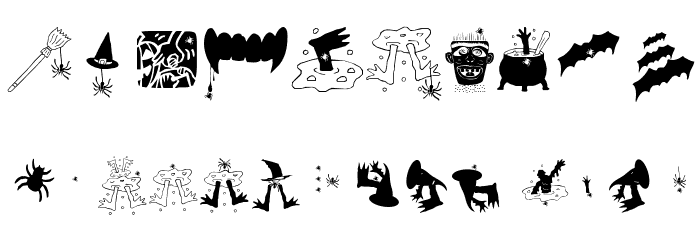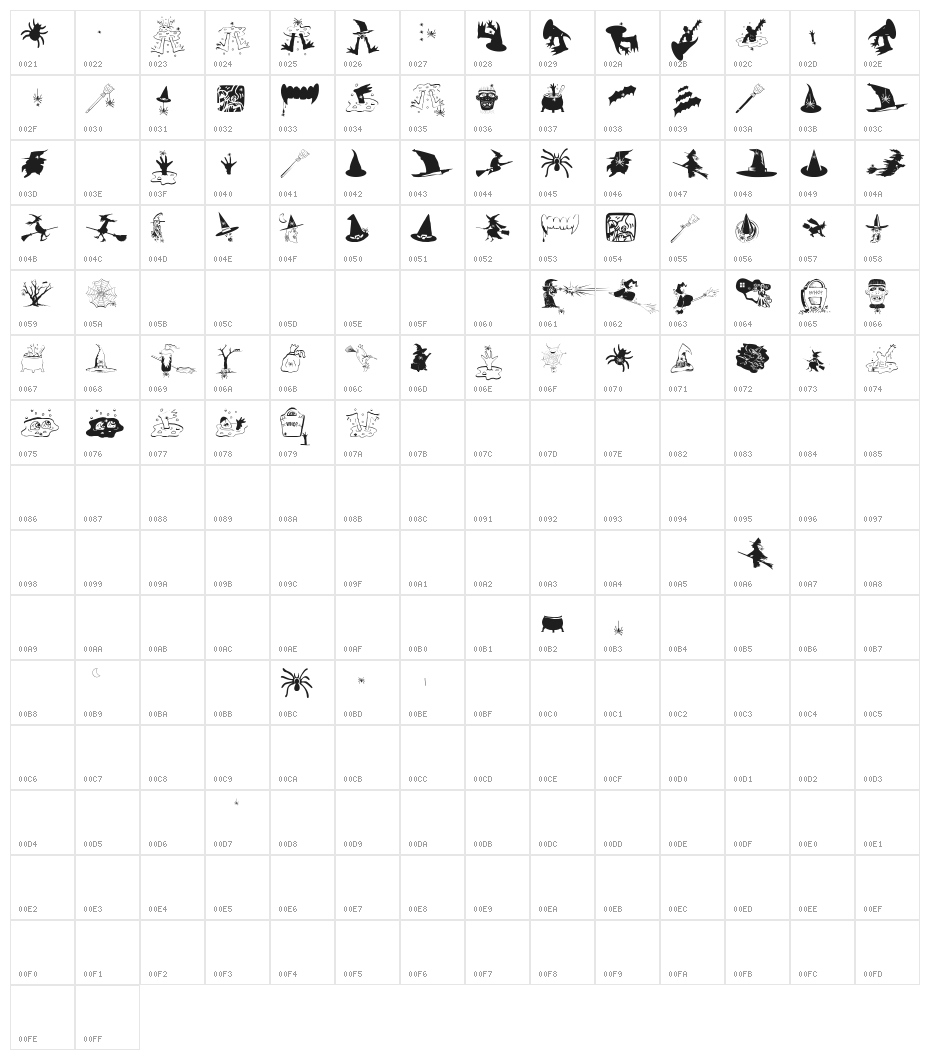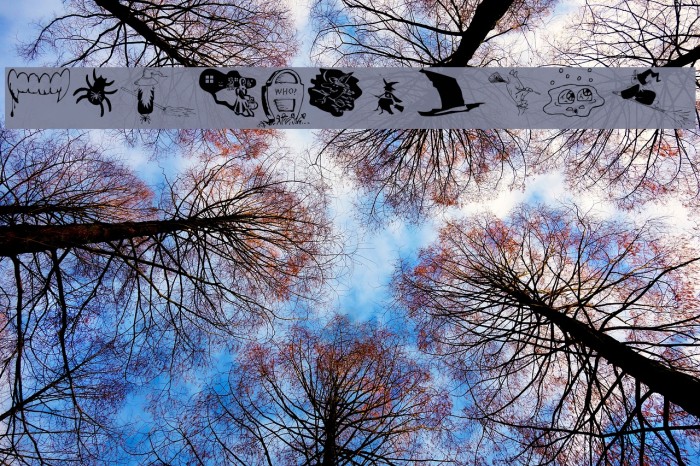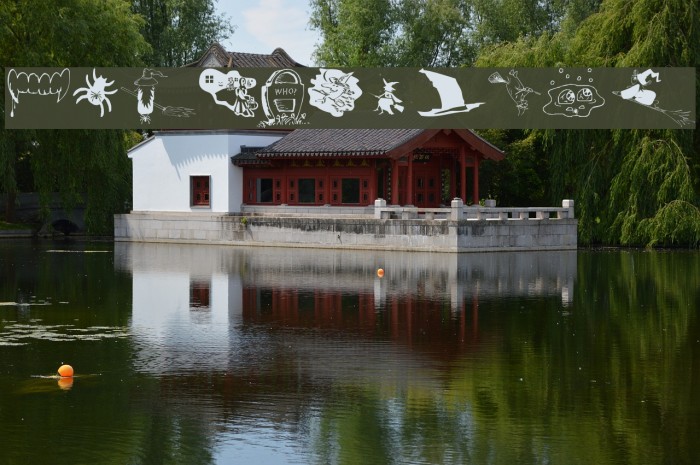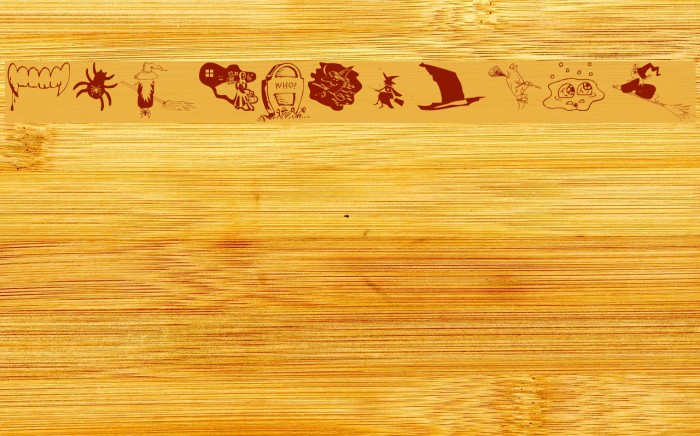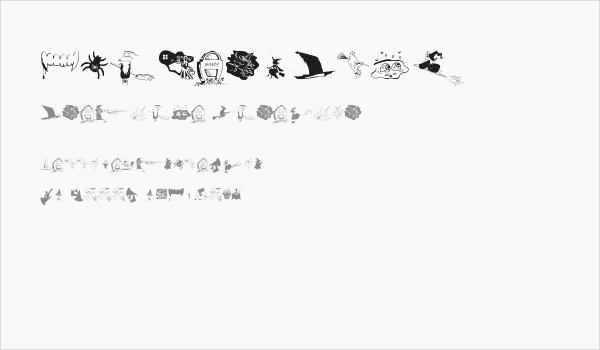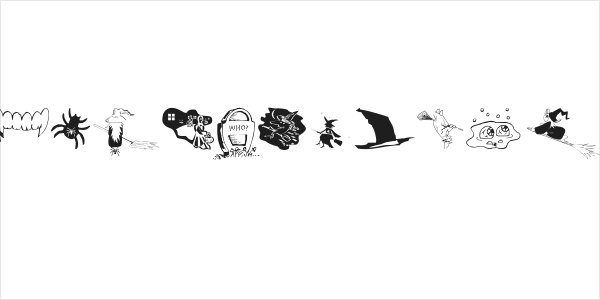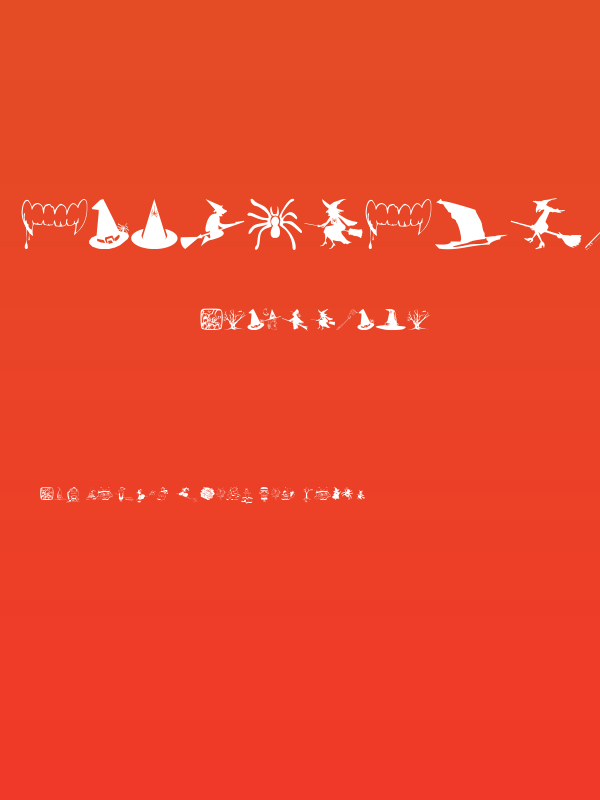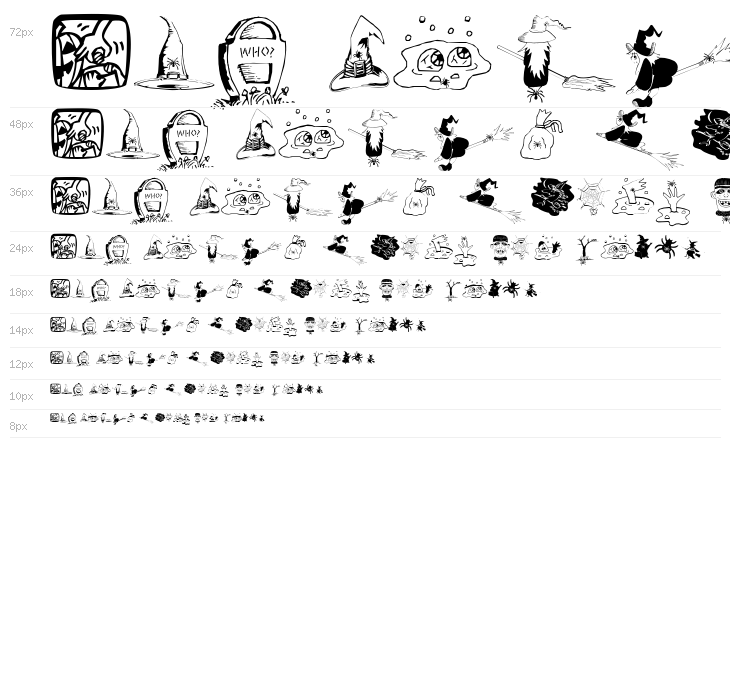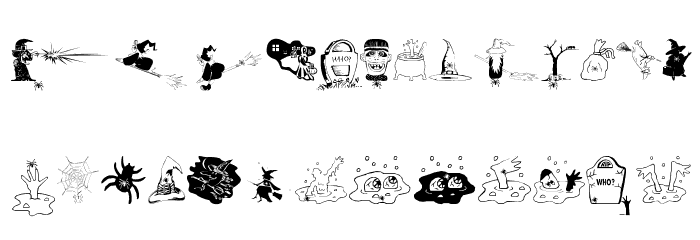
SpidersClub Font
SpidersClub Description
A playful, highly decorative dingbat font featuring various Halloween-themed illustrations such as witches, hats, spiders, cauldrons, bats, and other spooky motifs. Each character is represented by a unique, detailed drawing rather than a traditional letterform.
| Overall Style | Decorative, Whimsical, Thematic |
| Use Case | Decorative elements, Themed graphics, Not suitable for body text. |
| Proposed Projects | Party invitations, event posters, seasonal decorations, children's crafts, Halloween cards. |